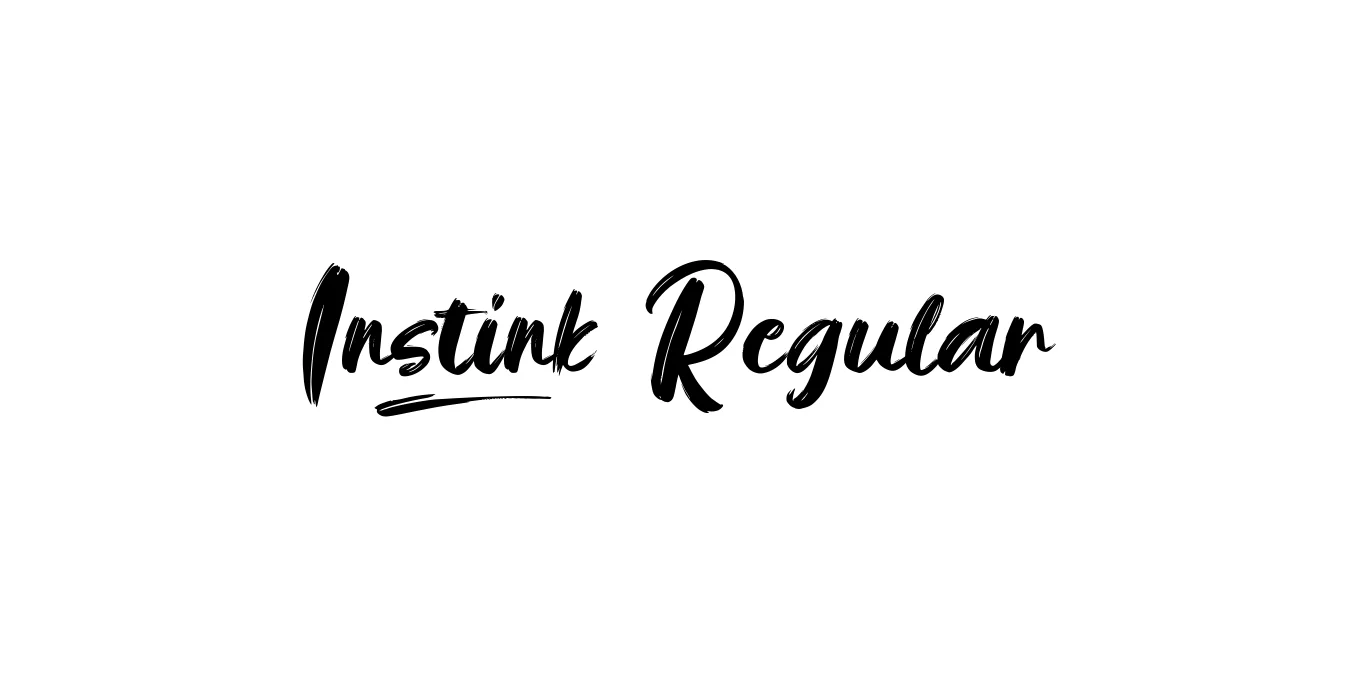
Instink Regular
Instink Regular is a powerful and expressive brush script typeface designed by Mans Greback. It embodies a raw, urban energy through its bold, hand-drawn strokes and textured edges, making it stand out in any creative composition. The font conveys a sense of urgency and artistic freedom, mimicking the appearance of quick graffiti or expressive paint strokes.
The typeface is particularly effective for projects that require an organic and authentic feel. Whether used for streetwear branding or high-energy sports graphics, Instink Regular provides a unique personality that balances legibility with a gritty, handcrafted aesthetic. It has become a popular choice among designers looking to inject a sense of motion and grit into their digital and print work.
Instink Regular Best Uses
Excellent for creating identity systems for urban fashion and apparel brands.
High-impact headlines for music festivals, events, and cinematic promos.
Great for bold Instagram overlays and energetic YouTube thumbnails.
Adds a rebellious and artisanal touch to product labels and boxes.